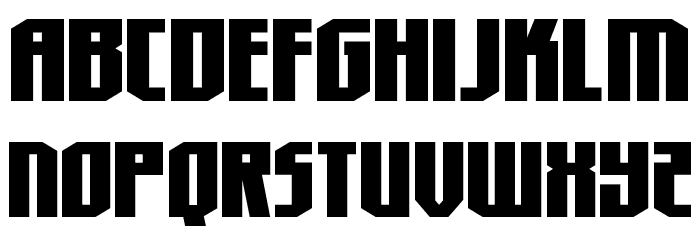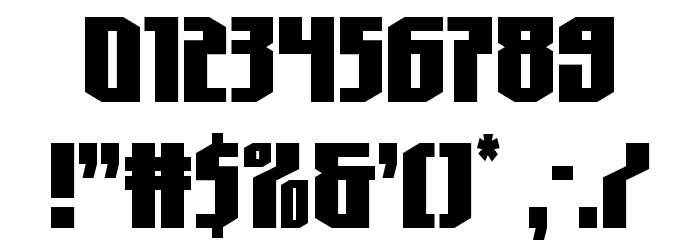
Hero Worship Condensed Font
This font features a bold, geometric design with a condensed structure, making it ideal for impactful headlines and titles. The characters are constructed with sharp angles and straight lines, giving it a modern and assertive appearance. The uppercase and lowercase letters maintain a consistent height, contributing to its uniform look. The numerals and special characters follow the same stylistic approach, ensuring cohesion across all elements. Its strong visual presence makes it suitable for projects that require a commanding and authoritative typeface.
A bold, geometric, and condensed font ideal for impactful headlines.
- Proposed Projects: Perfect for posters, branding, logos, and any design requiring a strong visual impact.
- Character Spacing: Tight